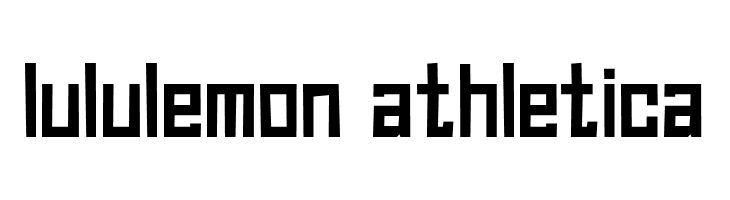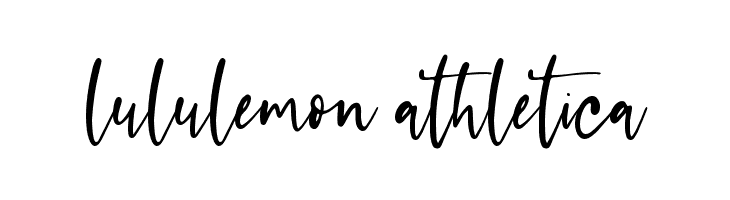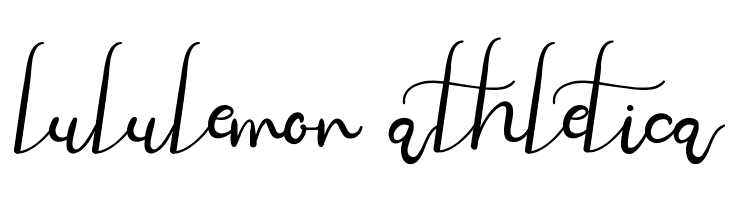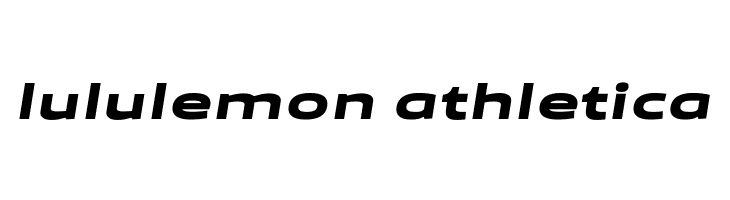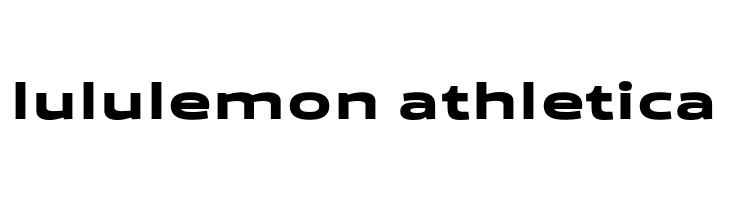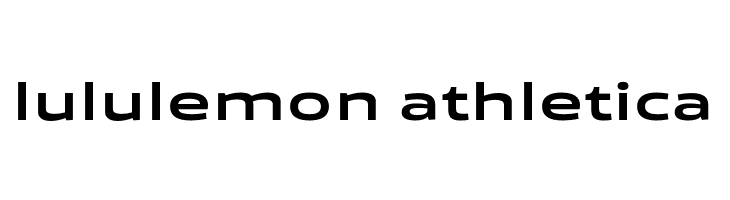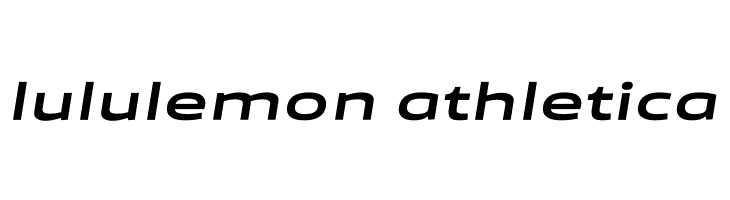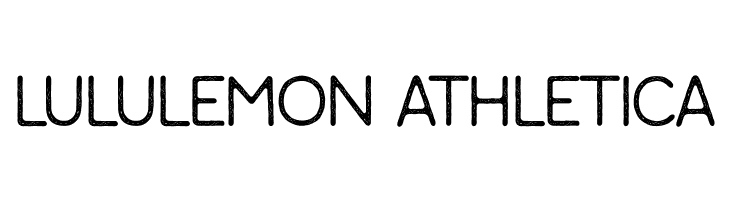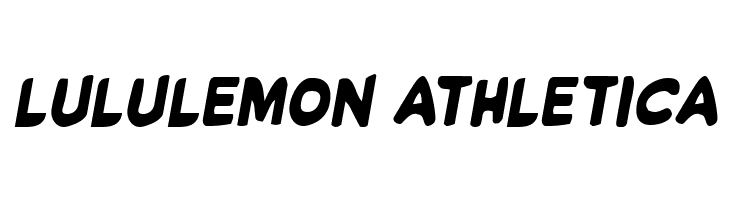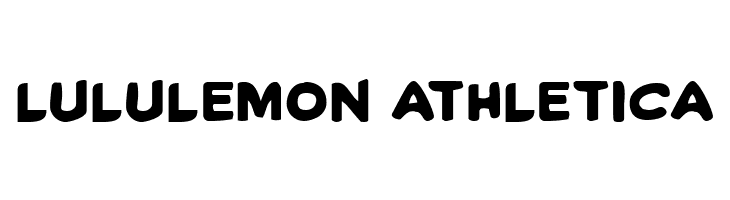
A modern, geometric sans-serif font with clean lines and uniform strokes.
A modern, medium-weight italic sans-serif font with balanced spacing.
A modern, clean sans-serif font with balanced proportions and excellent readability.
A bold, geometric font with sharp edges and a modern look.
An elegant, cursive font with flowing lines and decorative flourishes.
A bold, modern font with clean lines and a strong presence.
A bold, italicized font with a dynamic and modern style.
A bold, modern sans-serif font with clean lines and geometric structure.
A bold, italicized font with a sleek, modern look and consistent stroke weight.
A bold, modern font with clean, geometric lines and versatile characters.